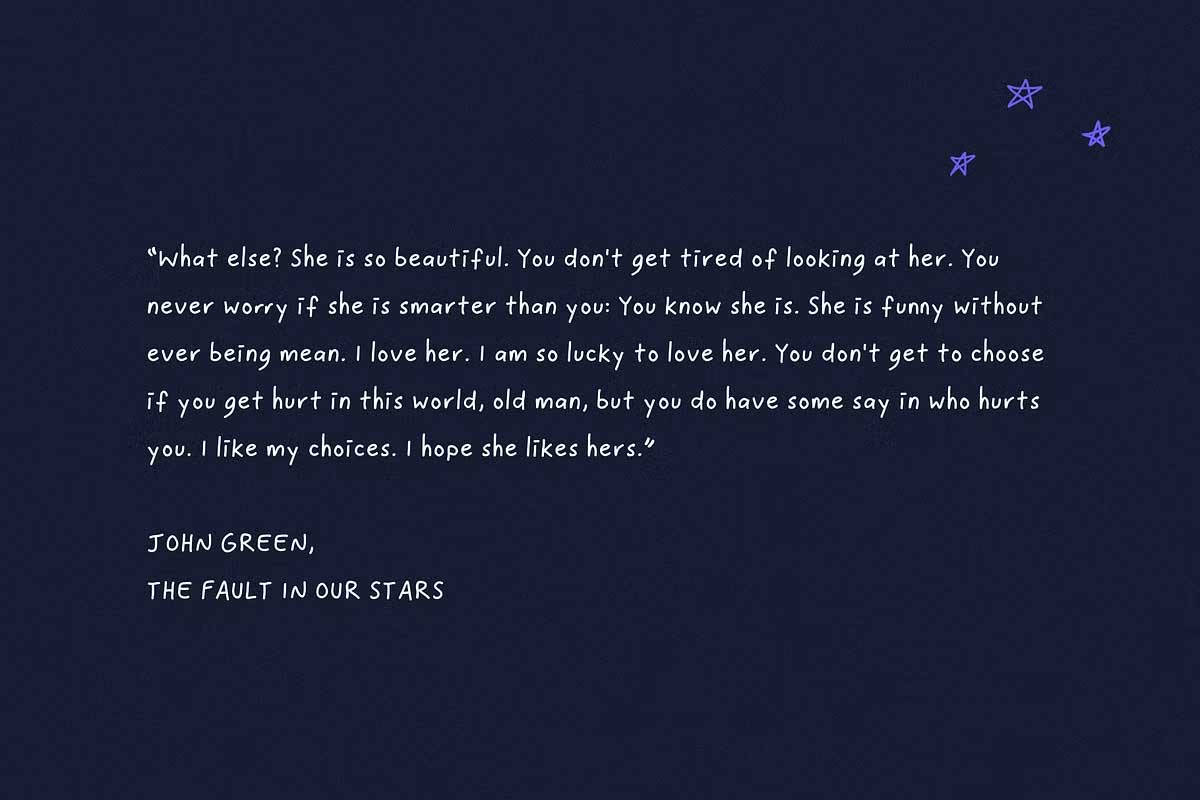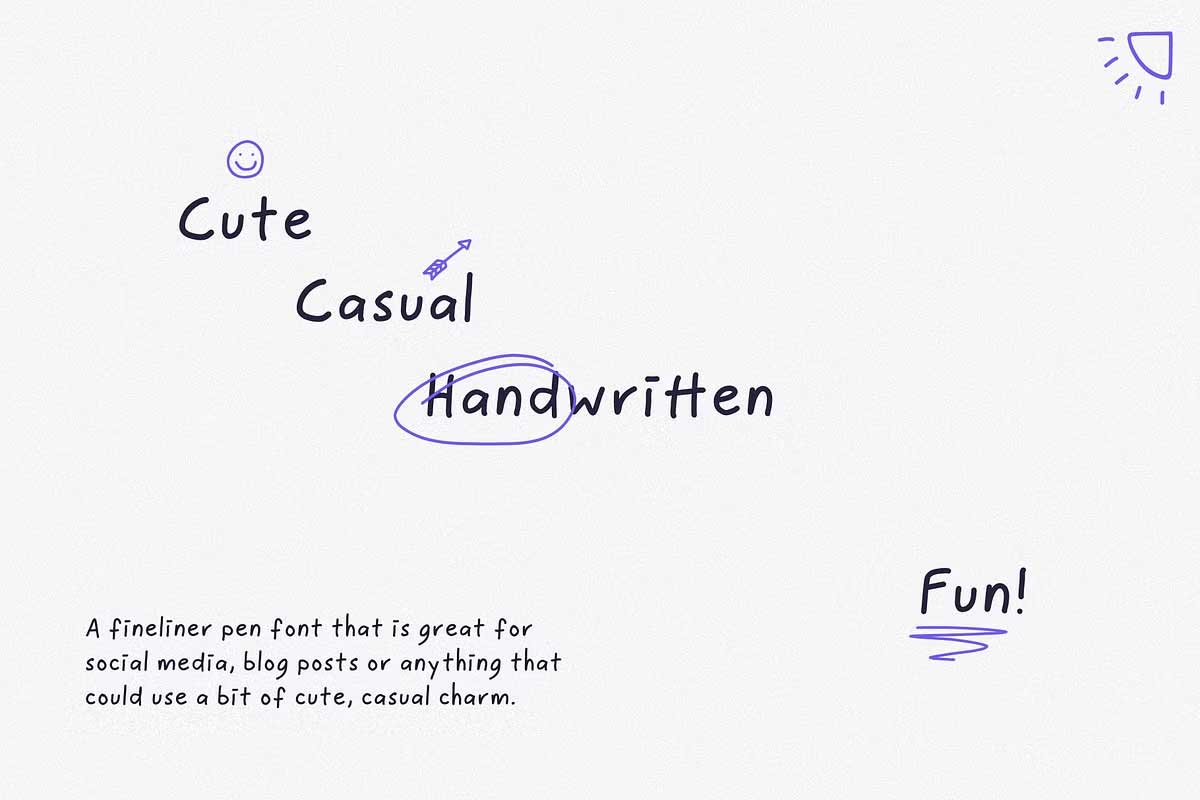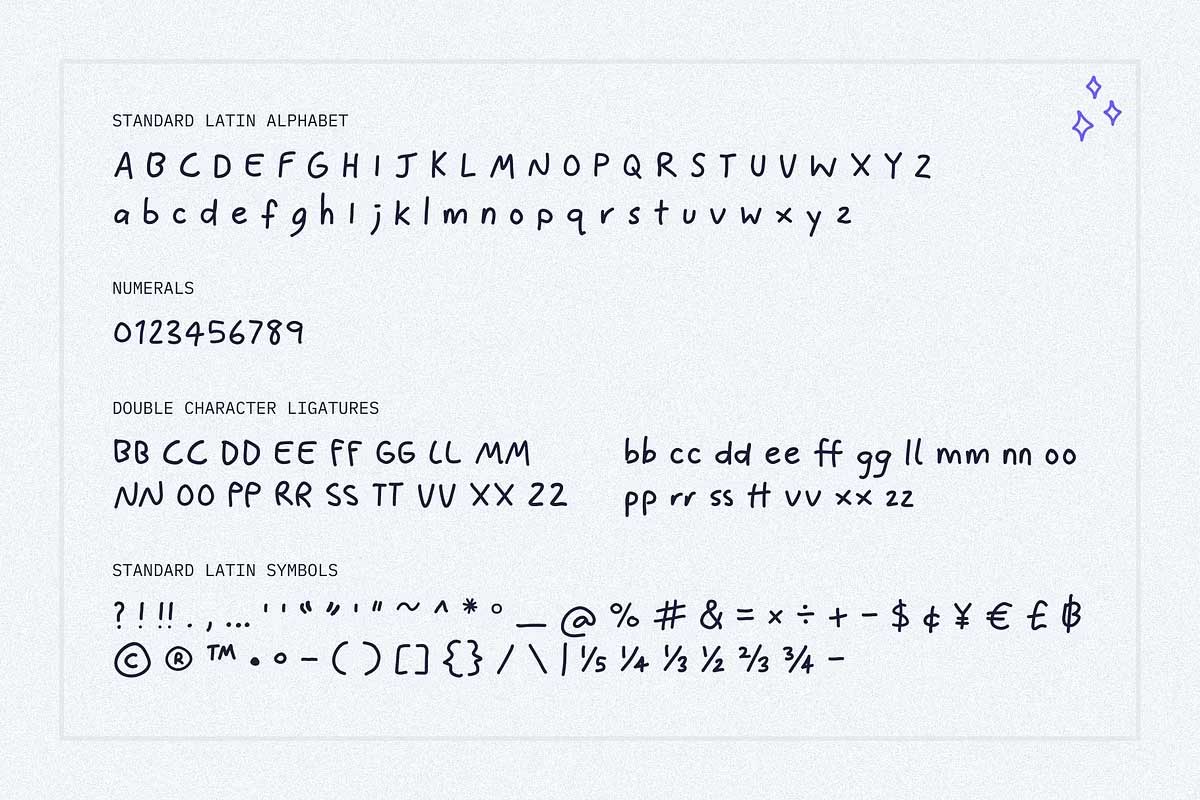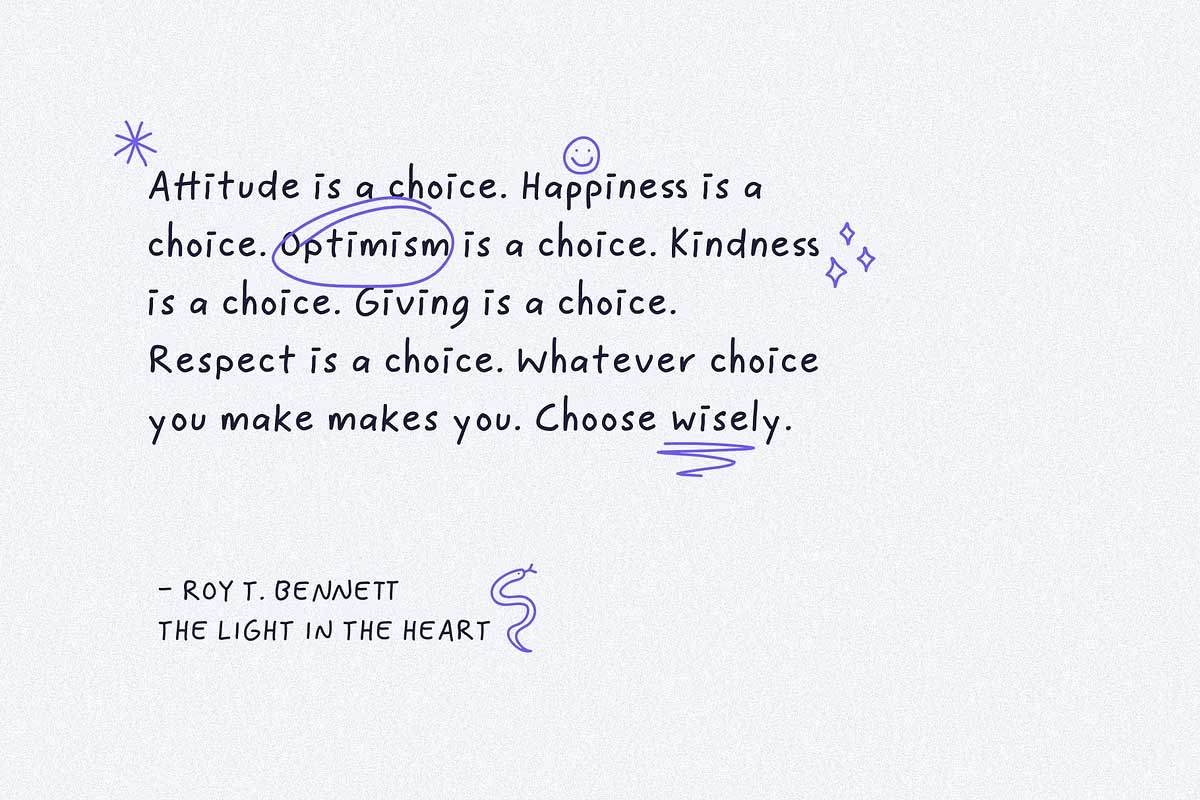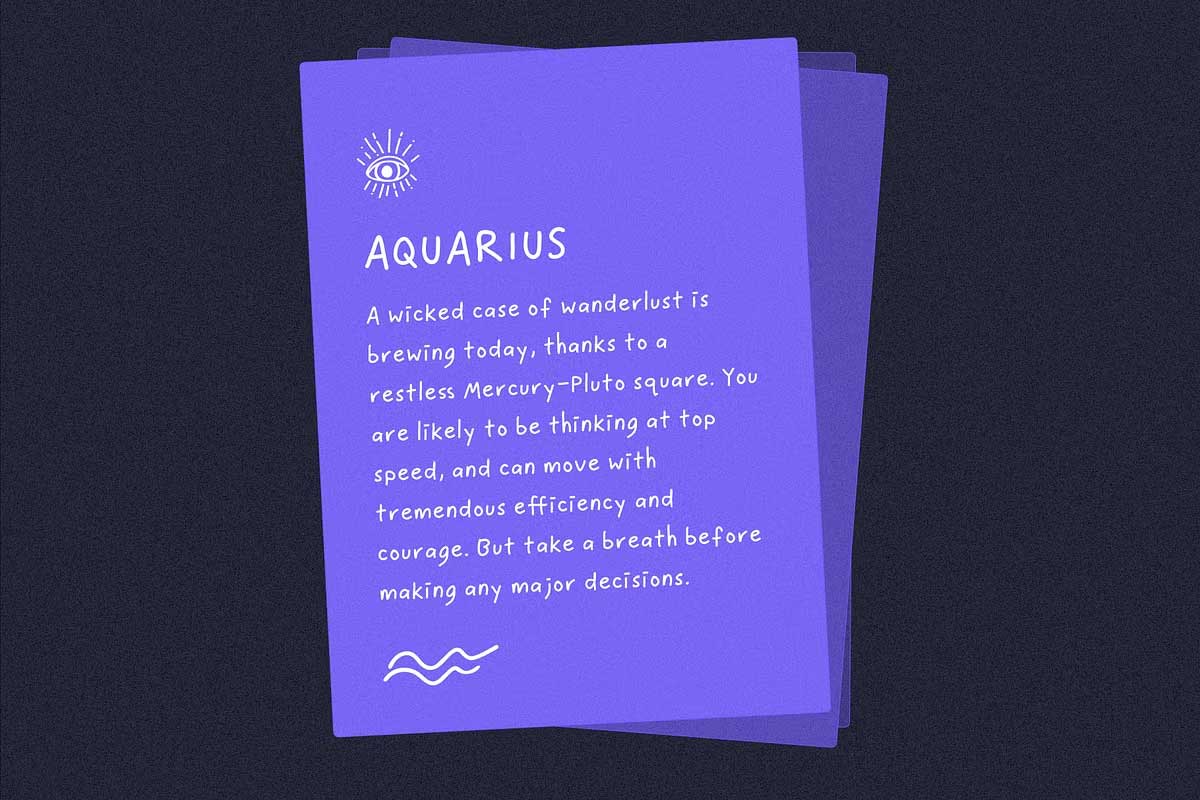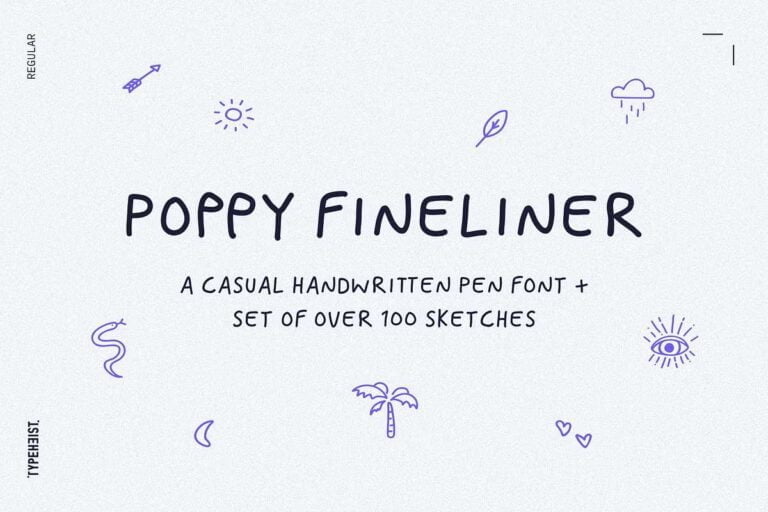
A cute and casual pen handwriting font + set of over 100 pen sketches. Included are two versions of each letter and number, so you can mix and match. With Poppy Fineliner you can add the pre-drawn doodles to your designs – easy!
Poppy Fineliner Fun Handwriting Font Preview